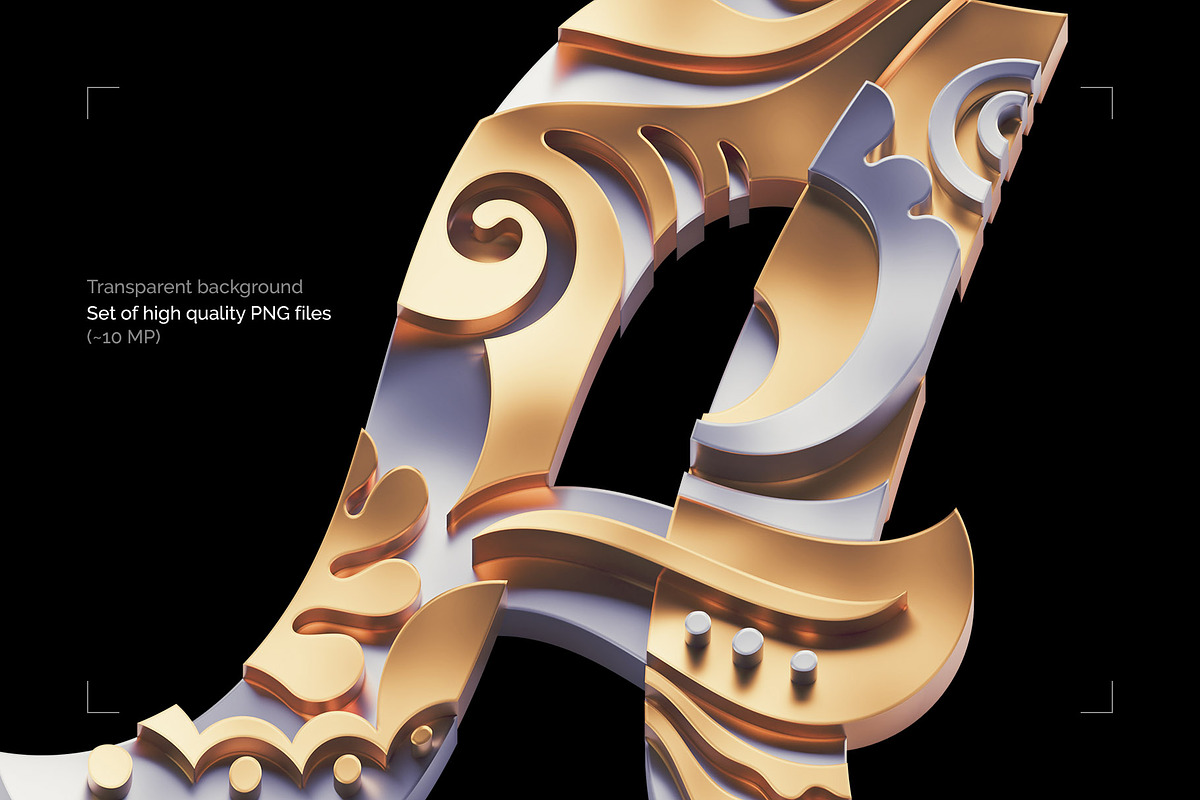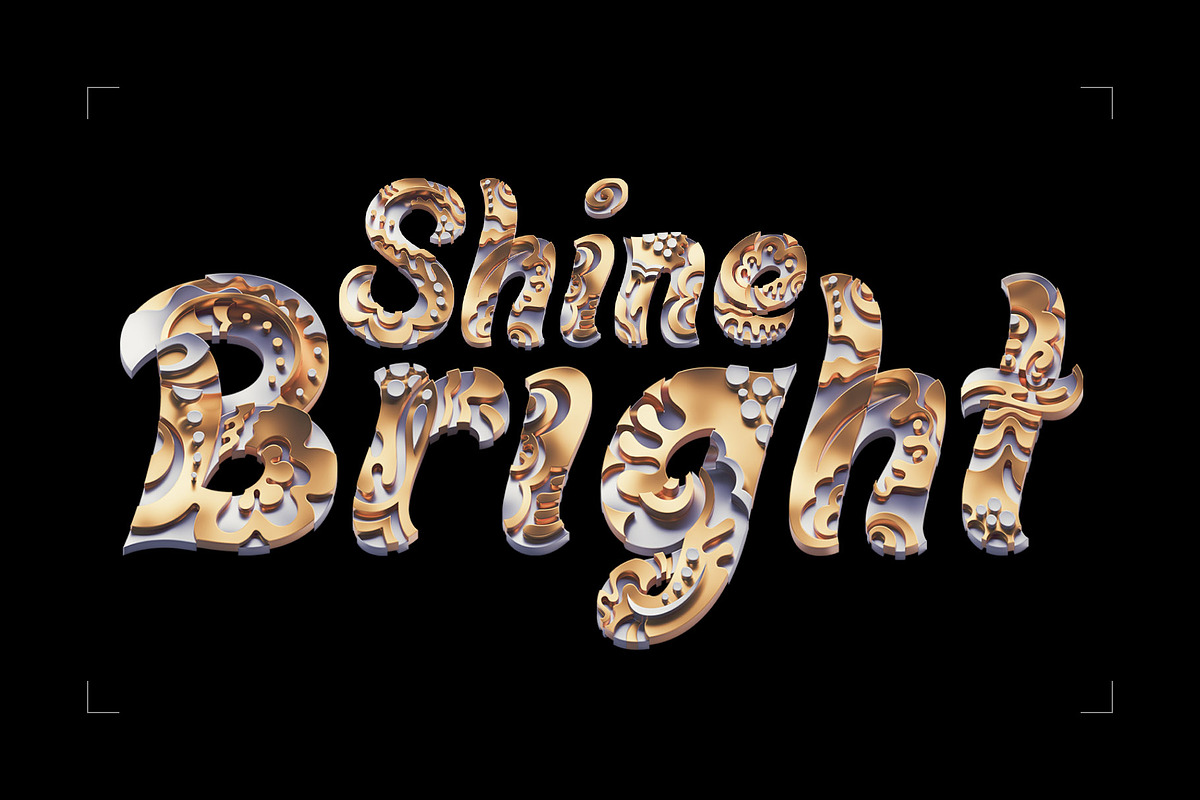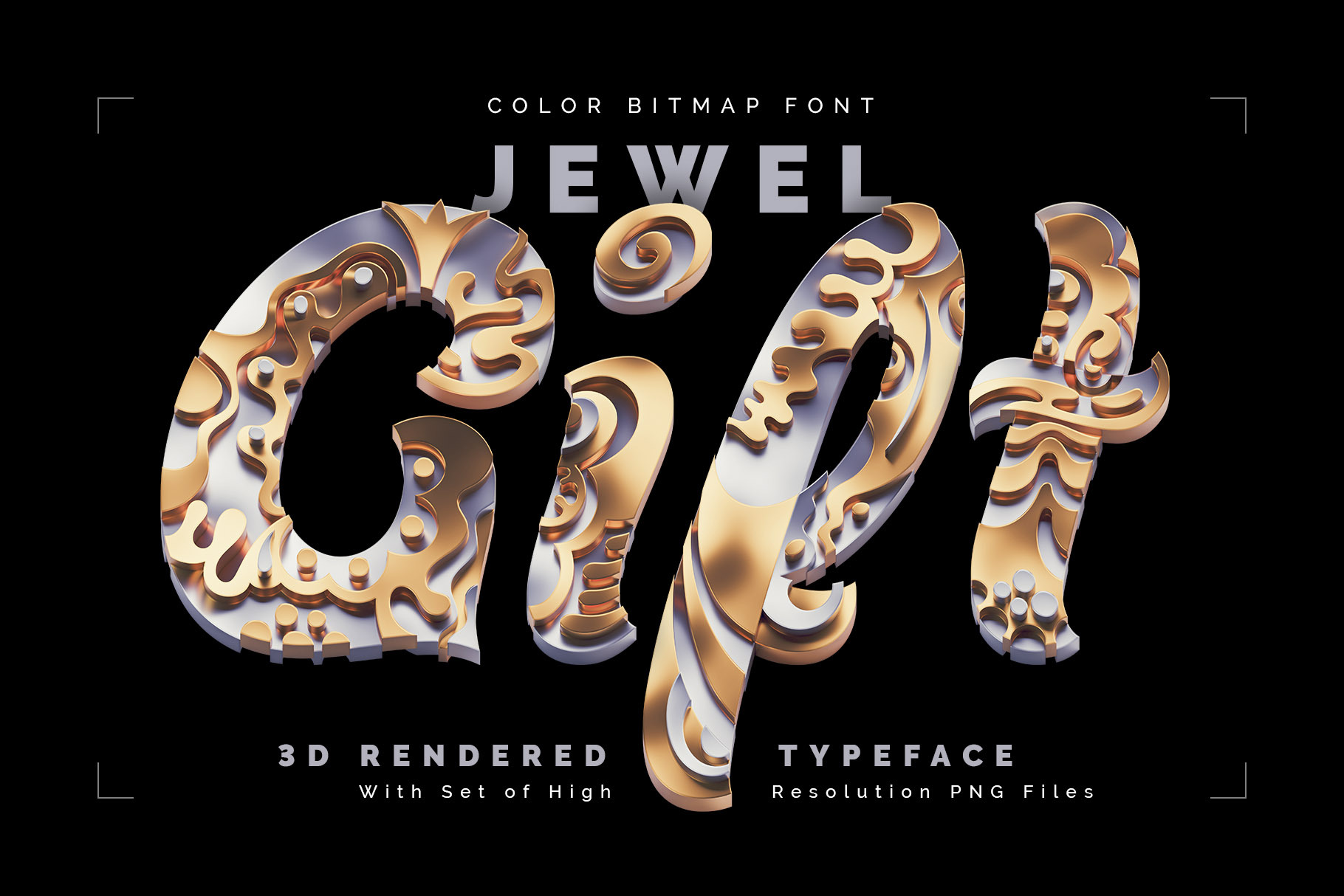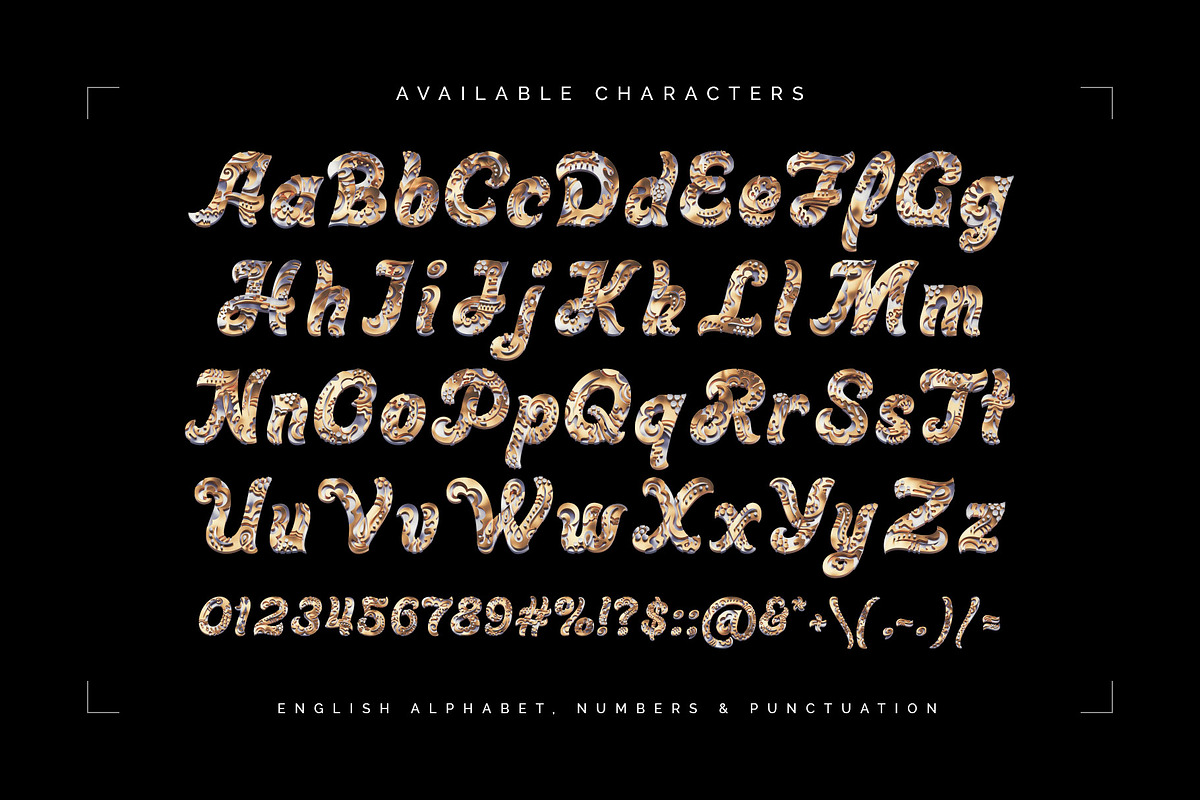
Jewel Gift — Color Bitmap Font
Hello! Presenting a luxury creative font set – Jewel Gift. It's a 3d rendered high quality typeface made of gold and silver with abstract jewelry surface. First of all it's a color bitmap OpenType-SVG font that can be used as a usual OTF font. Also a set of full resolution PNG files with transparent background is included (Average resolution is 10 megapixels). Consider that only English language and basic punctuation is supported, please check out the screenshot with all available characters.